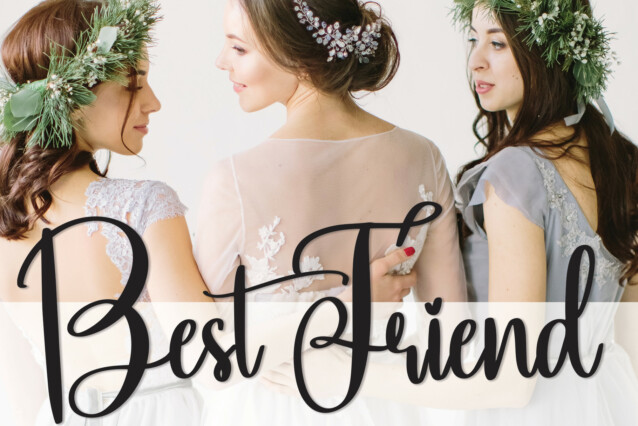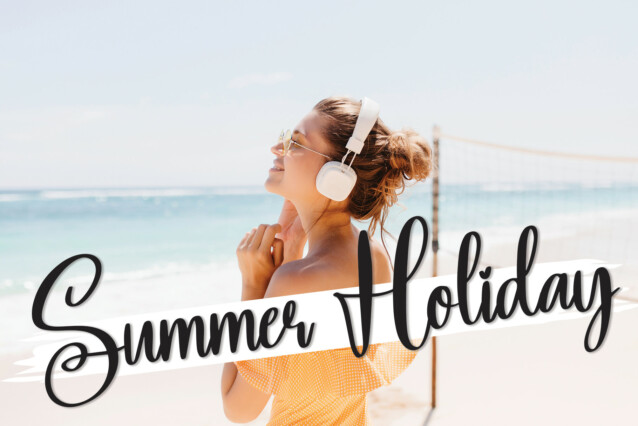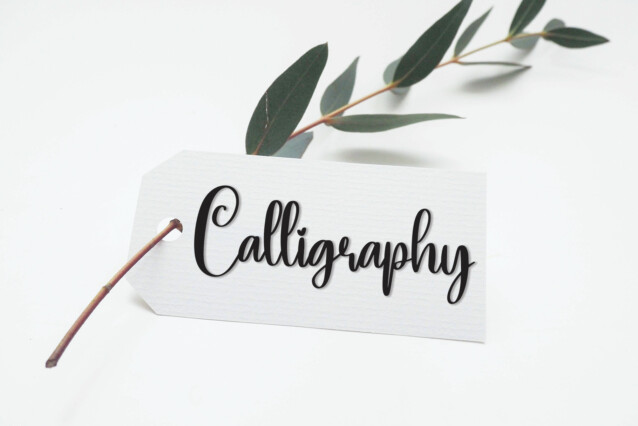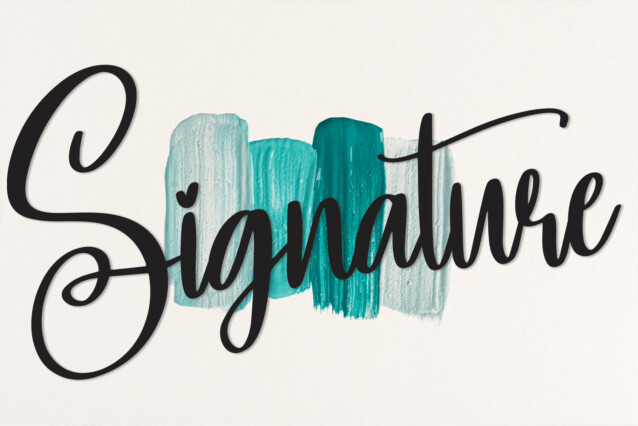
Hello Wedding Script Font
Hello Wedding Script Font is a sweet and friendly handwritten font. Creative and fresh, this font is ideal for writing wedding invitations, cards, or any other design that might need a fun touch!